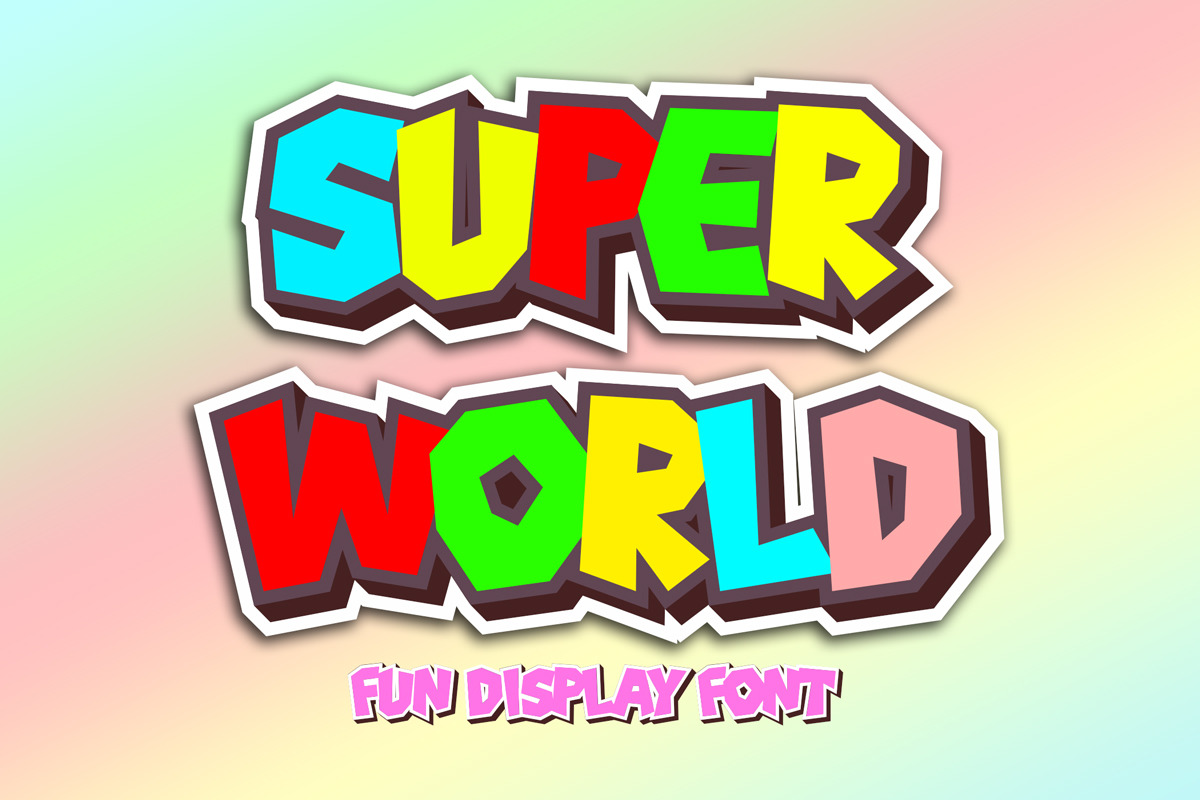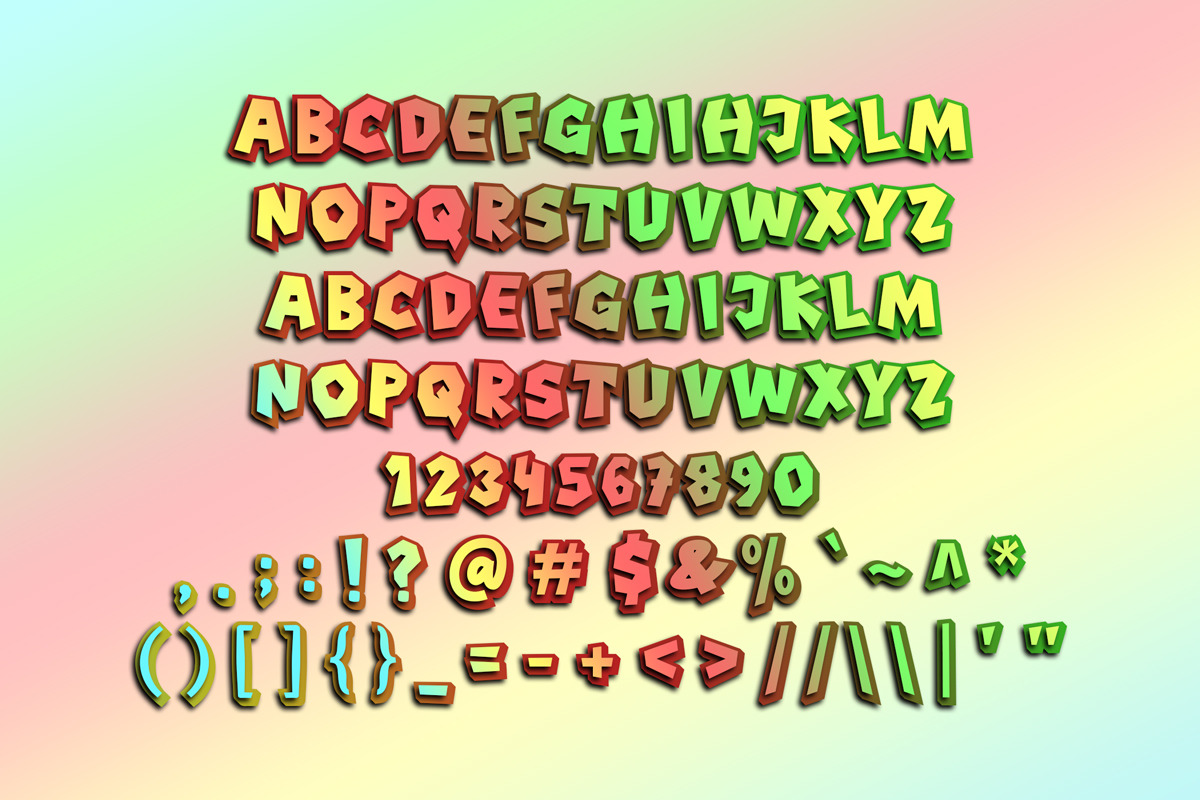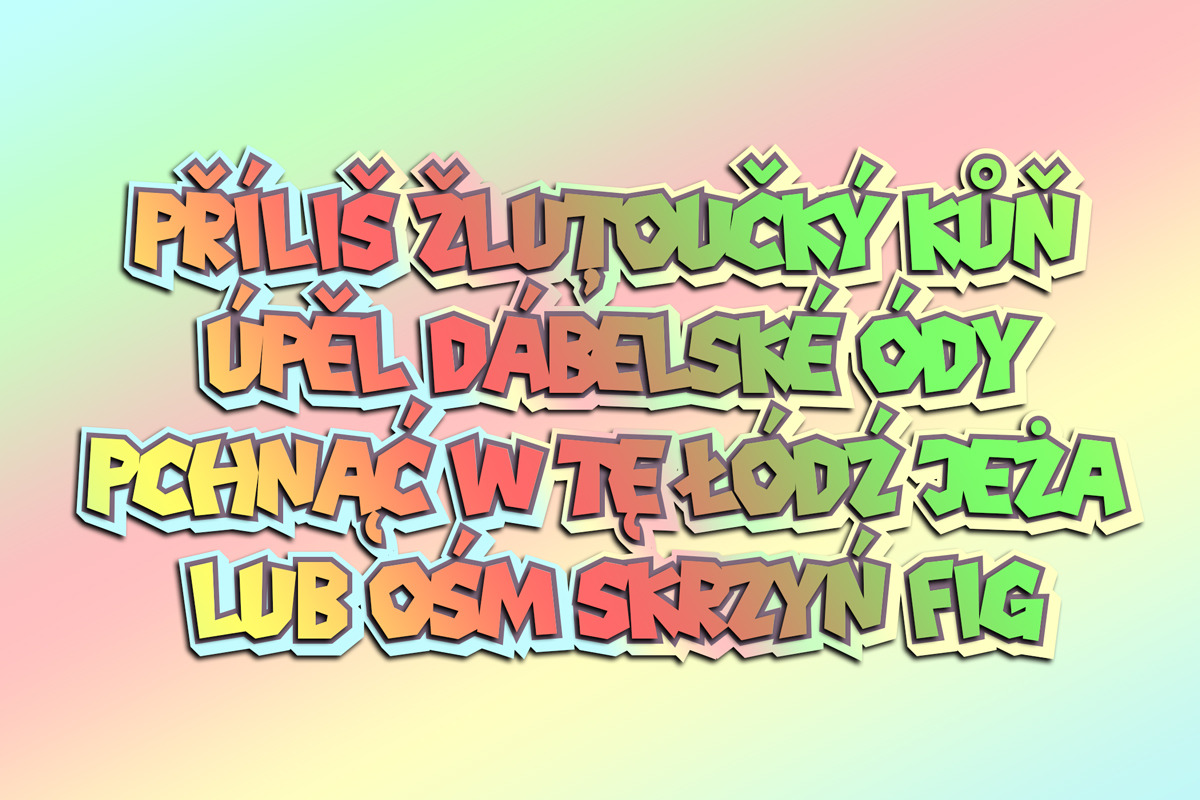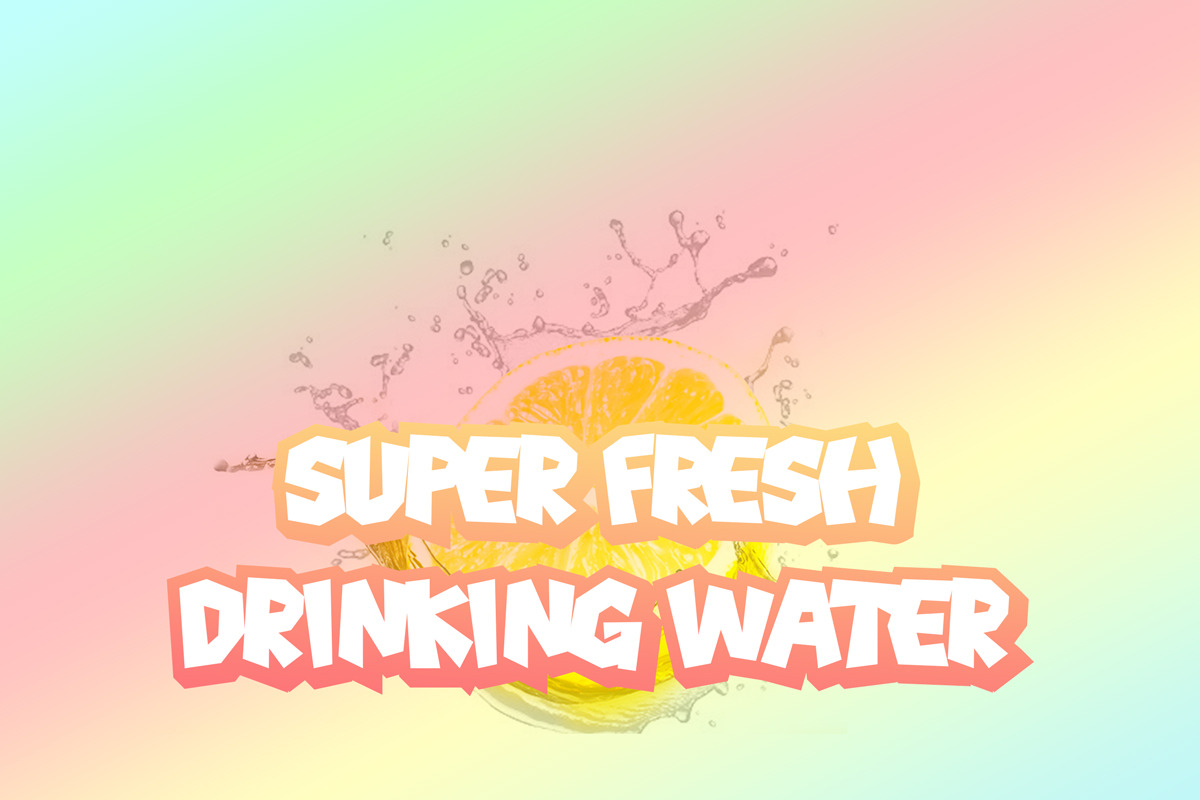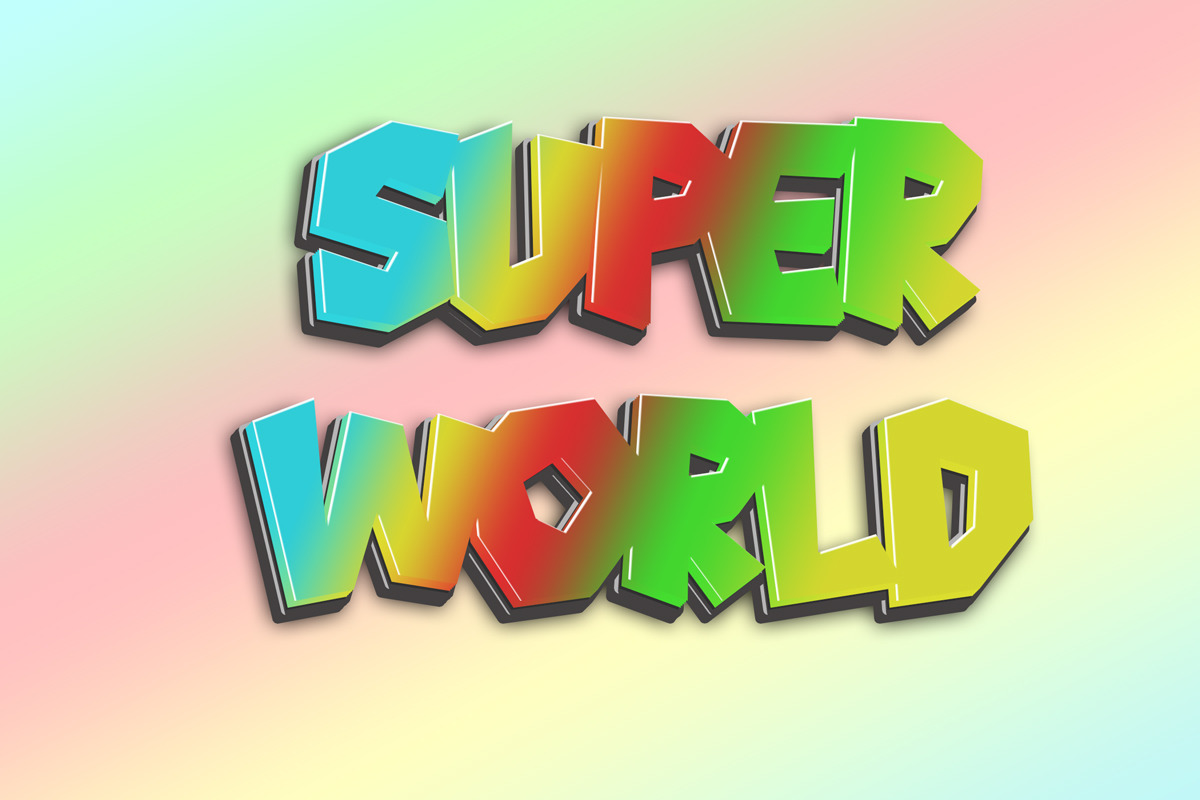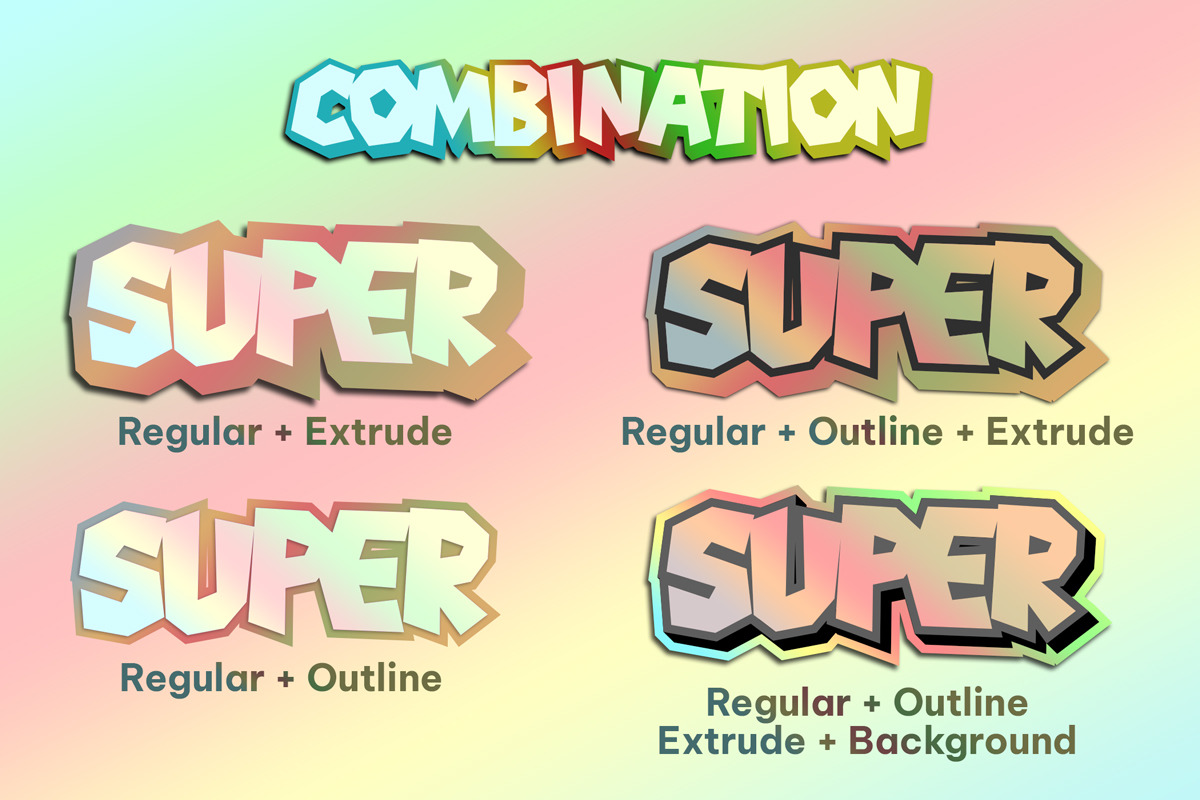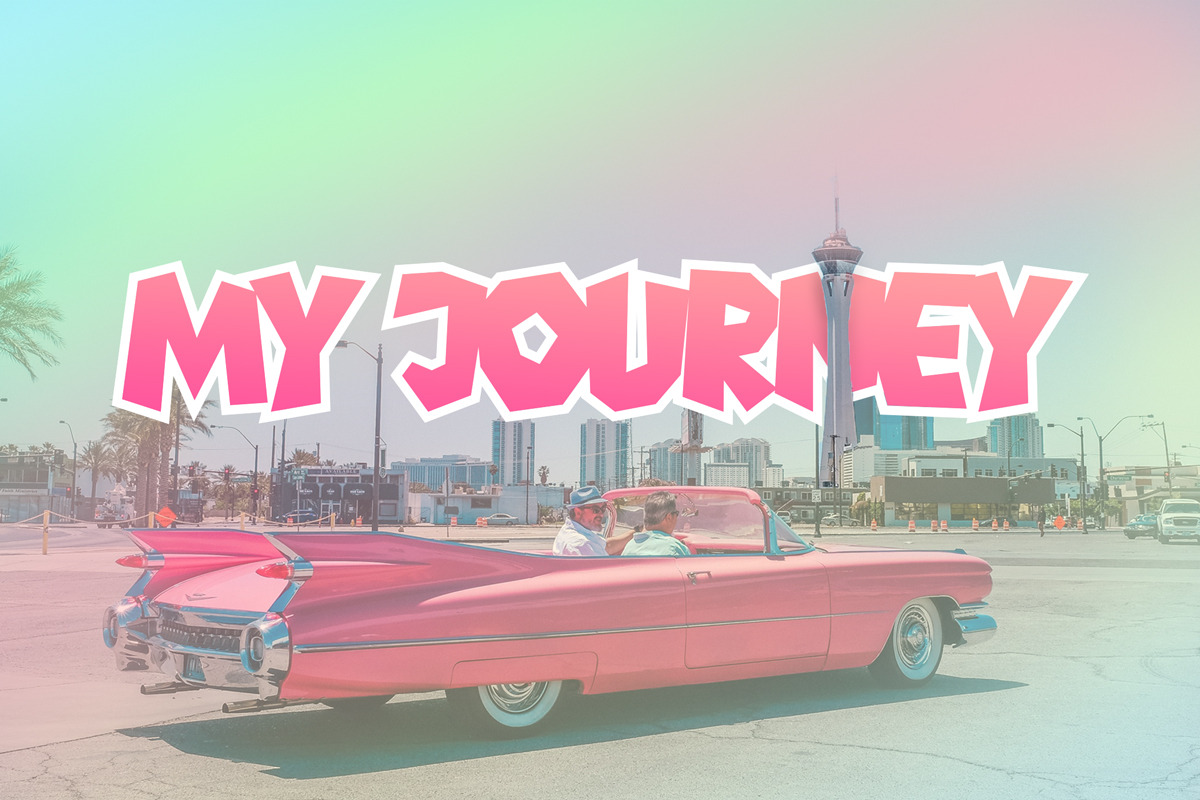
Super World // Styled Display Font
Super World is a layered font, inspired by the joyful world of colorful children. The unique characteristics make it suitable for various purposes such as quotes, t-shirt designs, flyers, YouTube channels, labels, logos, and every other design which needs a playful touch. Font includes all lowercase and uppercase characters, numbers, punctuation, swashes, alternate ,an array of standard ligatures and a selection of international characters as well . This font is PUA encoded which means you can access all of the glyphs and swashes with ease! (please type the preview to see if I have what you need!)